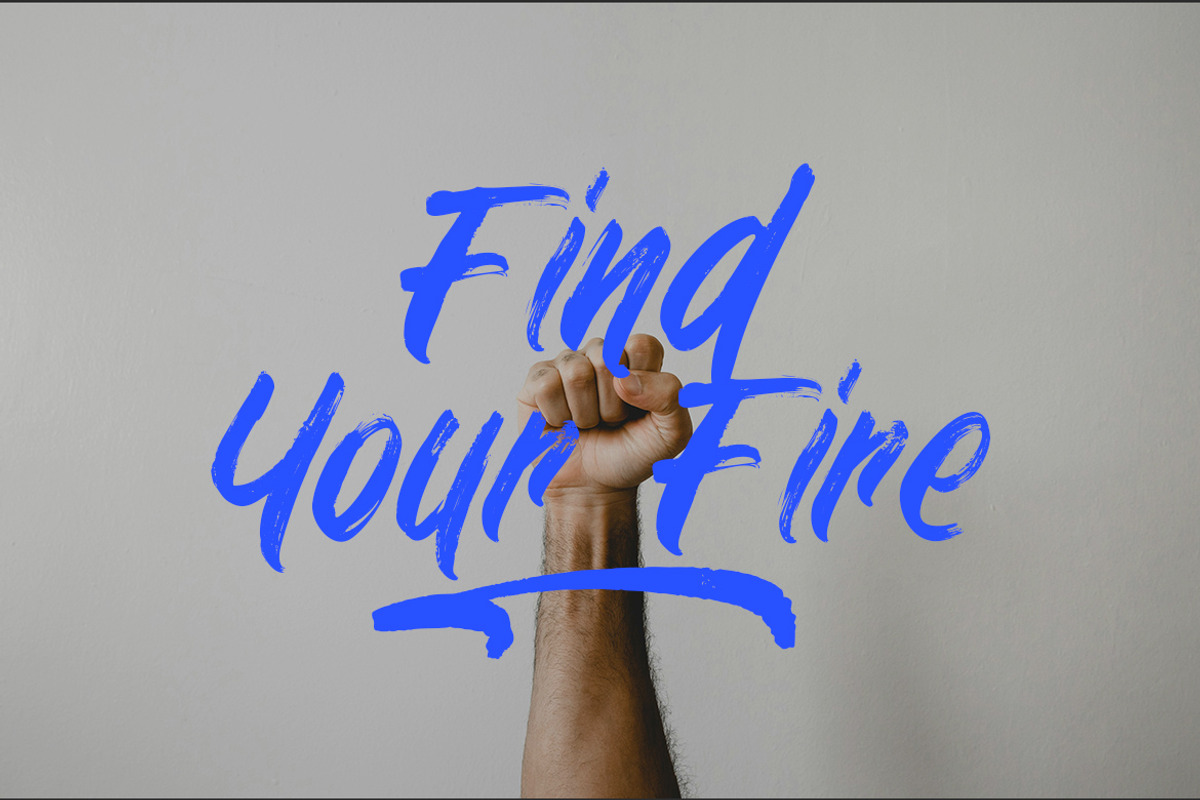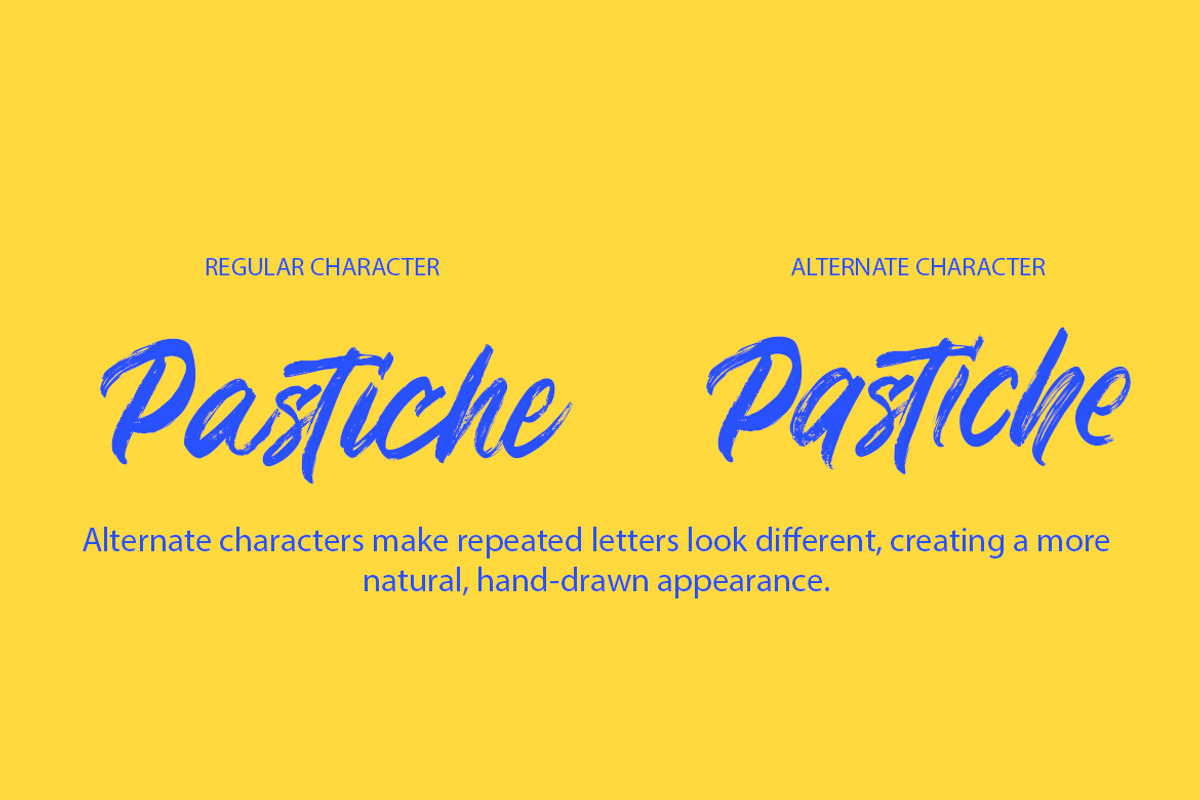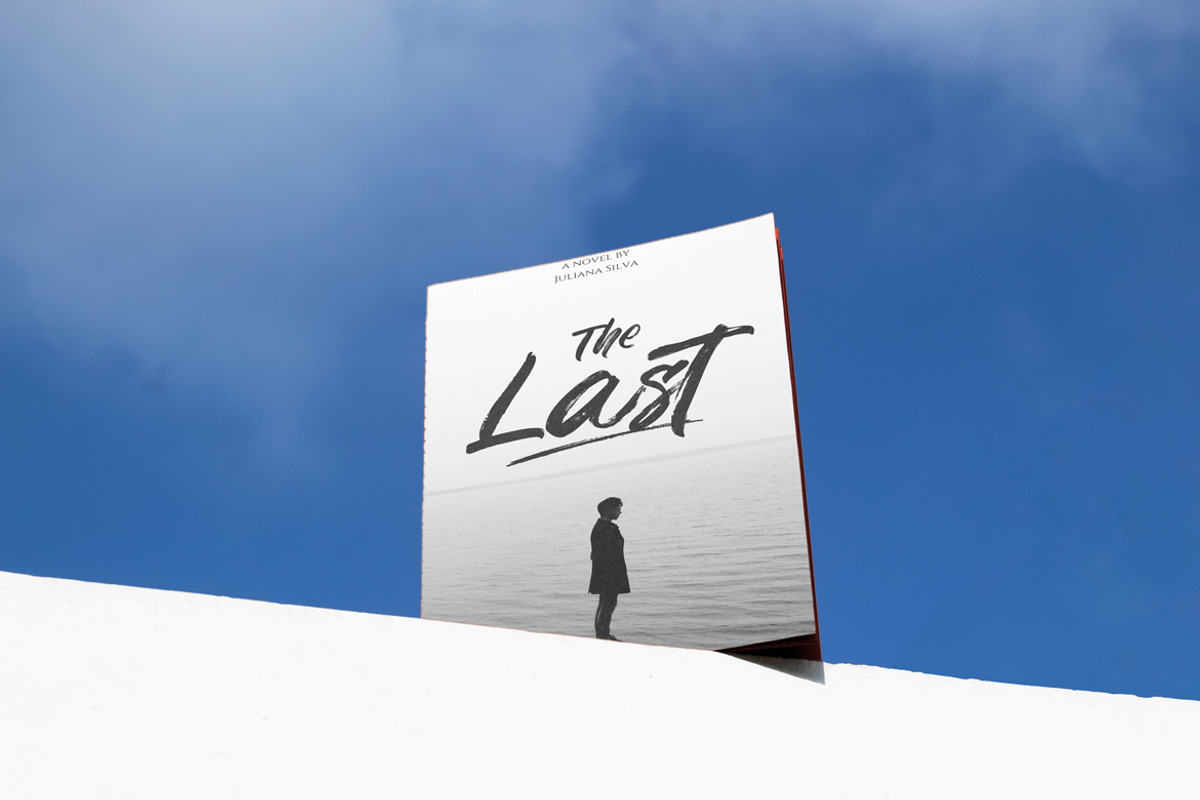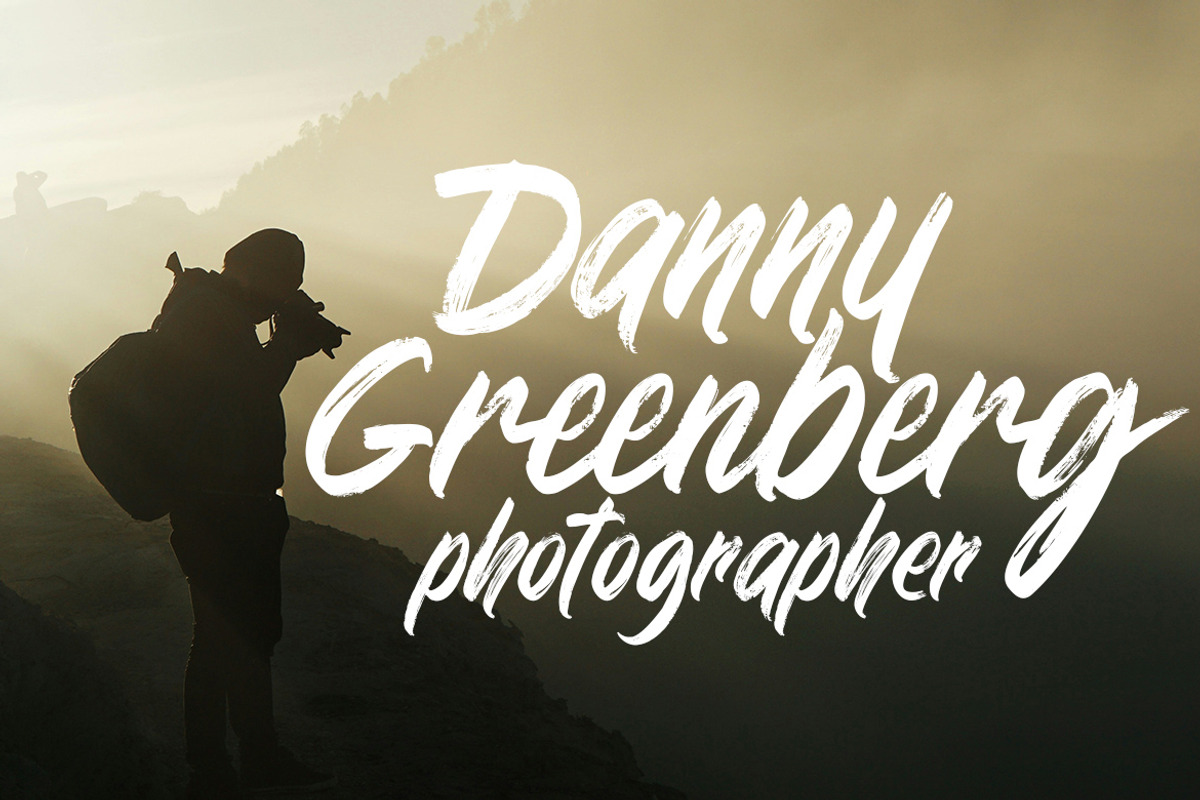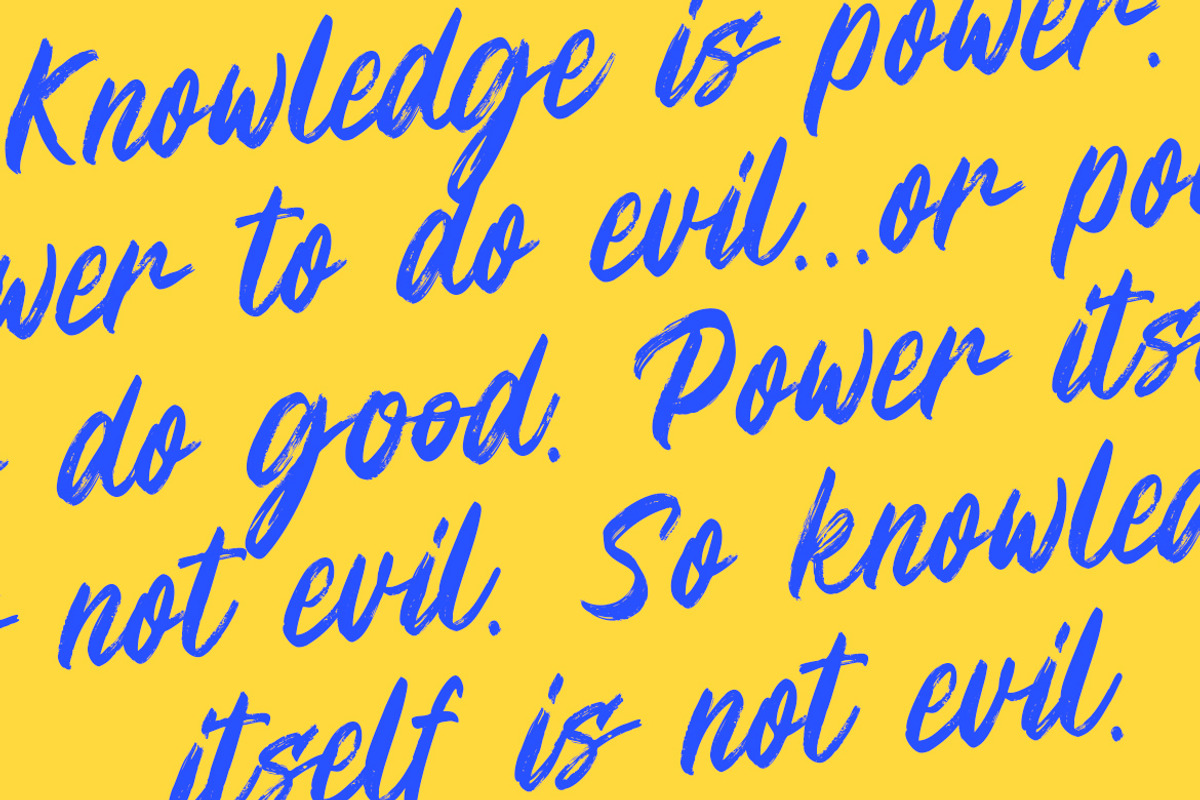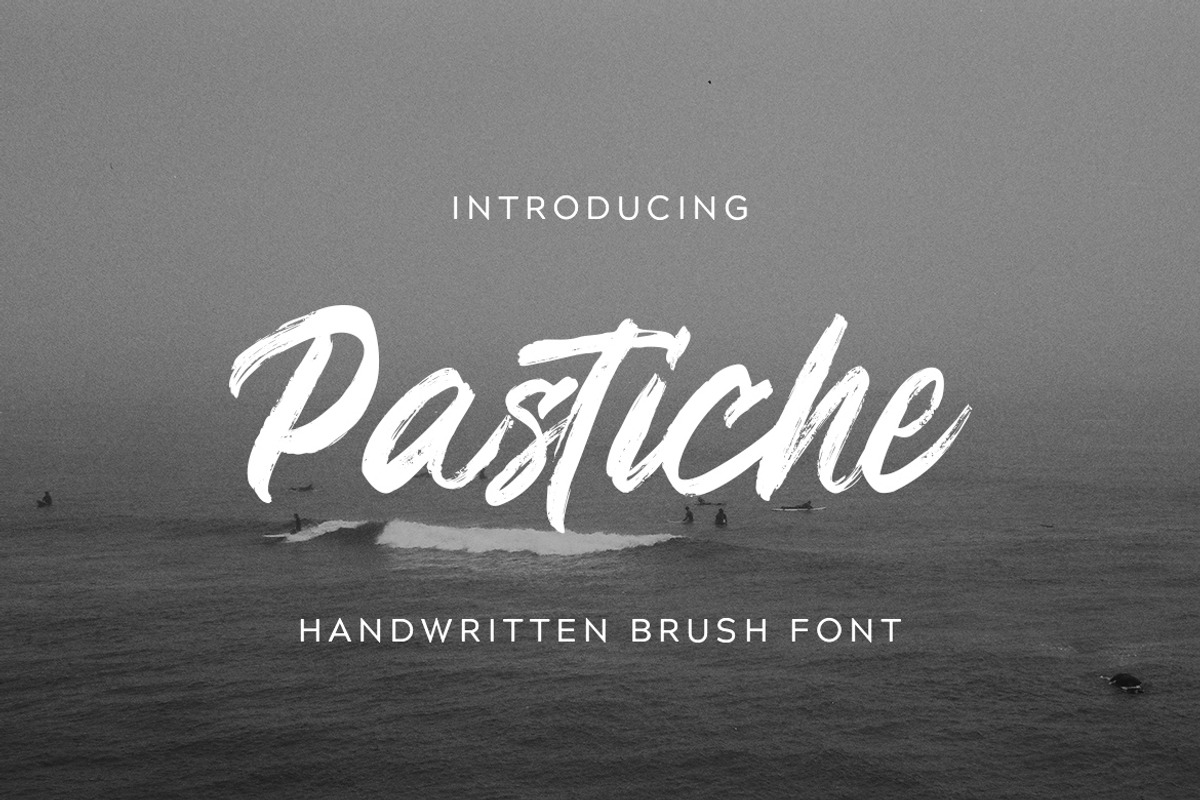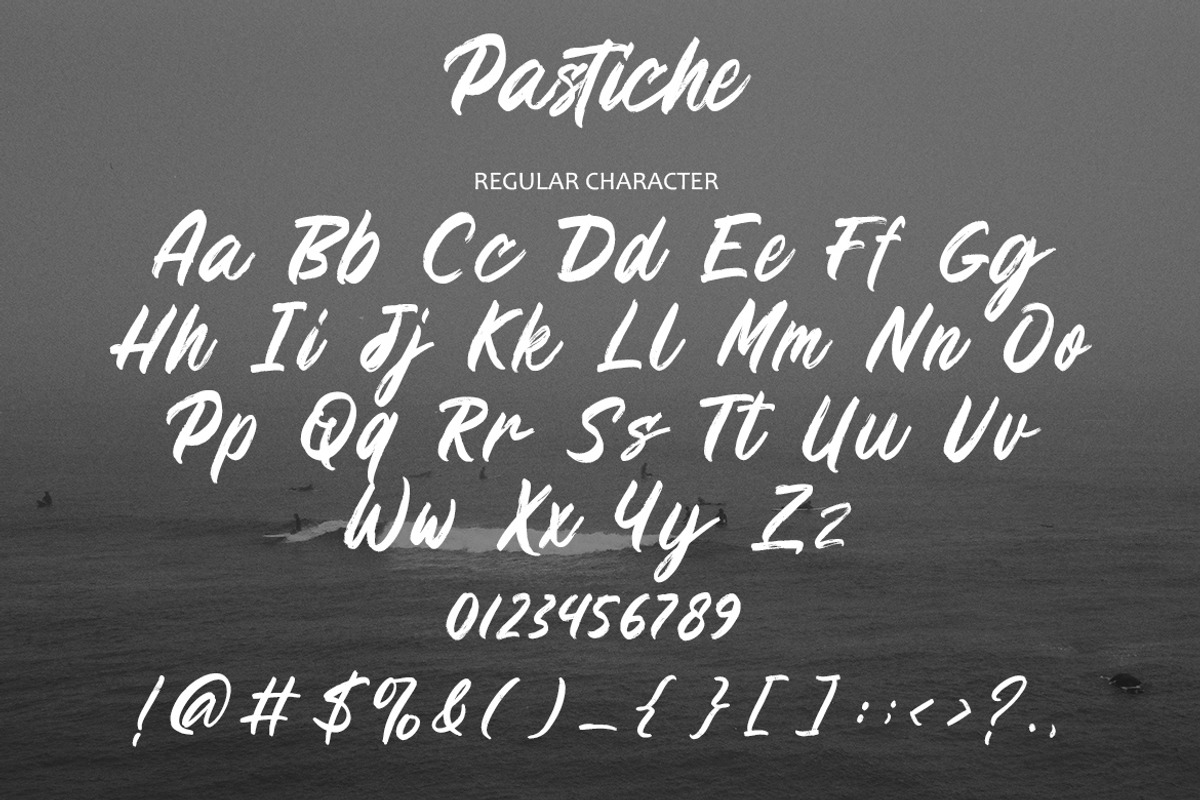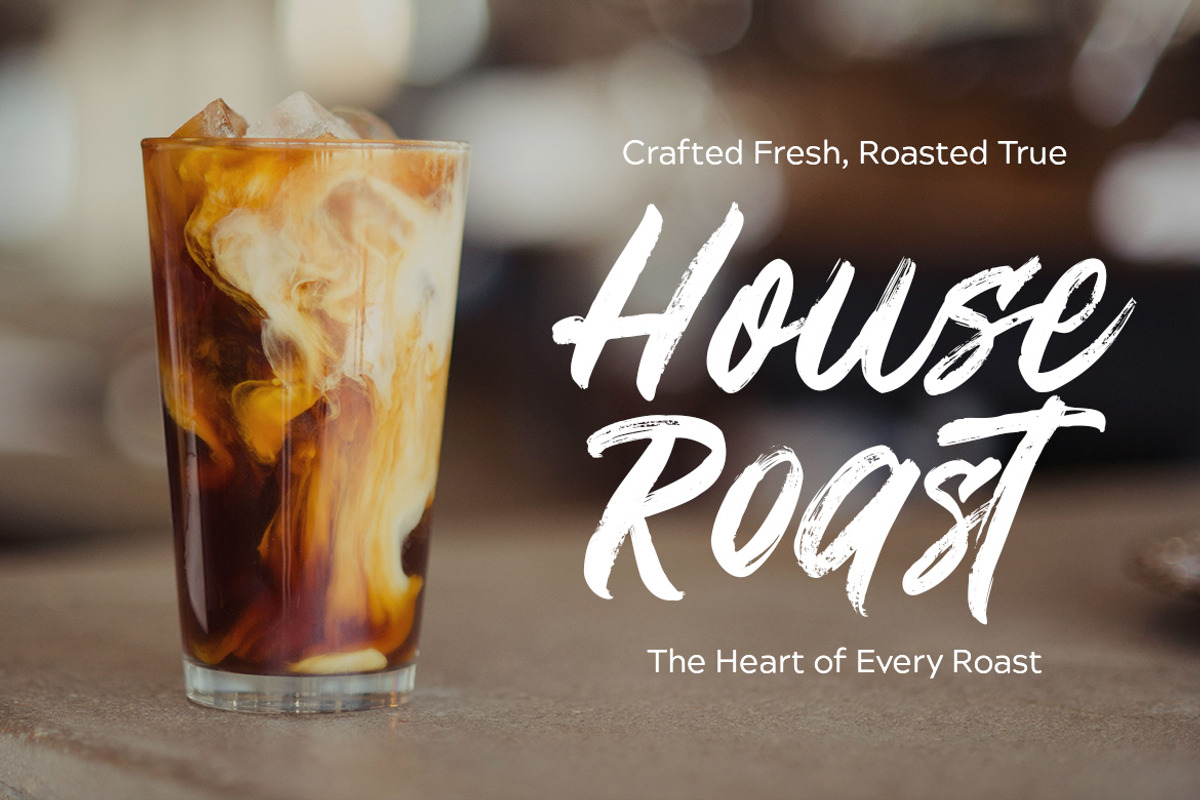
Pastiche – Handwritten Brush Font
Pastiche is a handwritten brush font that embodies raw expression and artistic flair. With its natural brush strokes and textured finish, this font adds a sense of authenticity and bold character to any project. Perfect for branding, editorial layouts, posters, merchandise, and social media, Pastiche captures the spirit of creativity and individuality. Its organic flow and dynamic form make it versatile for both modern and timeless designs, giving your work a strong and memorable impact. Whether you’re aiming for a bold statement or a handcrafted touch, Pastiche delivers a powerful typographic presence.
* Uppercase Letters
* Numbers & Punctuation
* Ligature & Alternate Character
* Unique Hand-Drawn Style